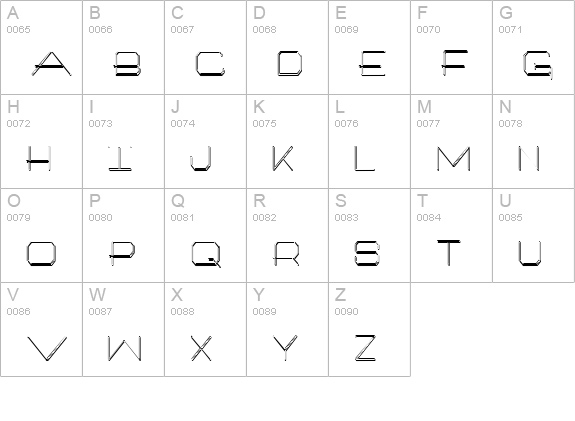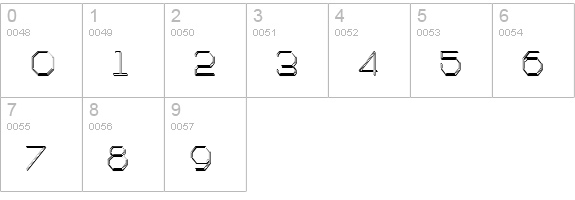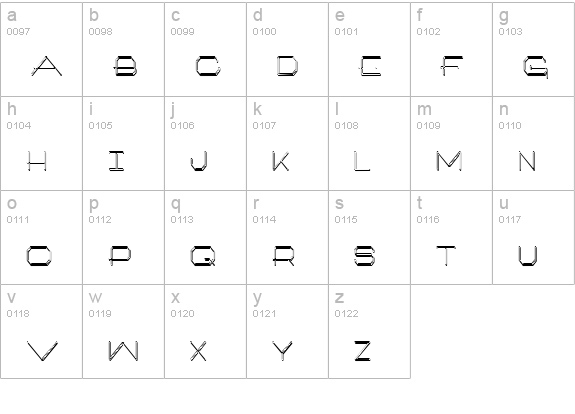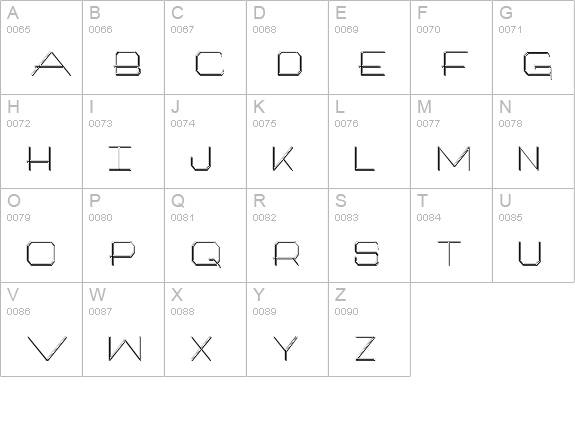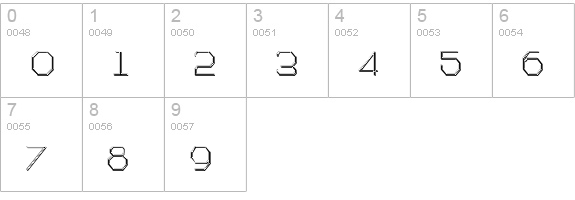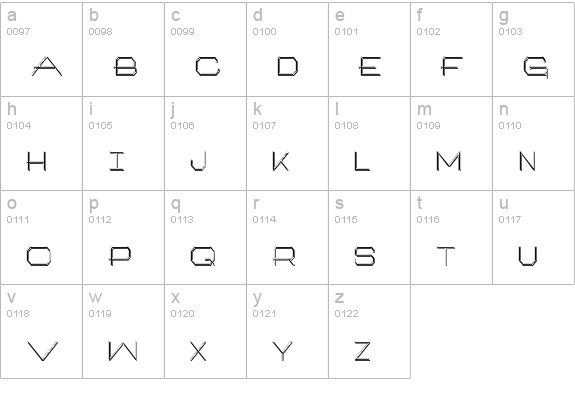
Artlook 3-D Narrow is a distinctive, condensed-width variant in the Artlook typeface family \xE2\x80\x94 well suited to design and typography projects.
Artlook 3-D Narrow font is a sleek and modern typeface that brings a unique three-dimensional effect to your designs. This font is perfect for adding depth and dimension to headings, logos, and other creative projects. Its narrow and geometric design makes it stand out while maintaining a clean and professional look. The Artlook 3-D Narrow font is not only stylish and eye-catching, but it is also available for free download at FontsMarket.com. This means that you can easily access this versatile font and use it in your personal and commercial projects without any cost. With its bold and contemporary style, Artlook 3-D Narrow is sure to make a statement and elevate your design work to the next level.